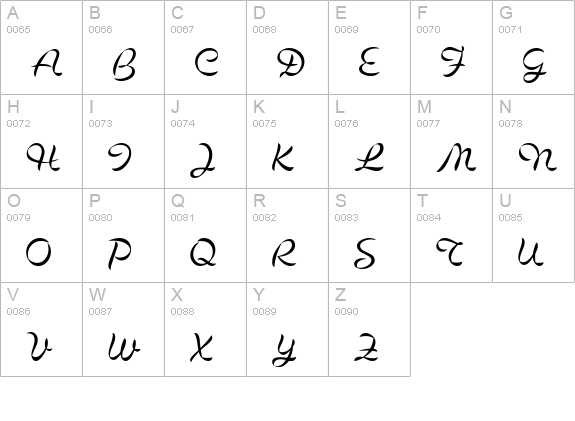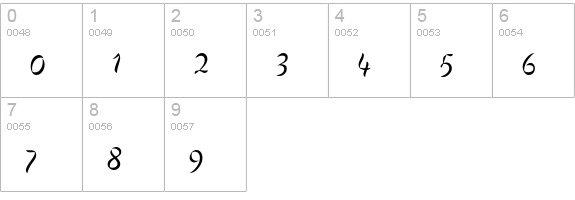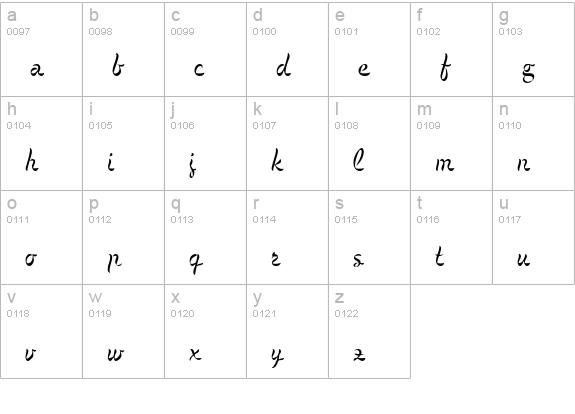
Cigno MF Font Details
Cigno MF font is a beautifully crafted typeface that exudes elegance and sophistication. With its graceful curves and delicate serifs, this font is perfect for adding a touch of refinement to any project. Whether you're designing invitations, branding materials, or editorial layouts, Cigno MF will elevate your work to new heights. What's even better is that Cigno MF font is completely free to use! You can download it at FontsMarket.com and start incorporating its timeless charm into your designs today. Don't miss out on this opportunity to enhance your projects with a stunning typeface that won't cost you a penny. Download Cigno MF font now and let its beauty speak for itself.